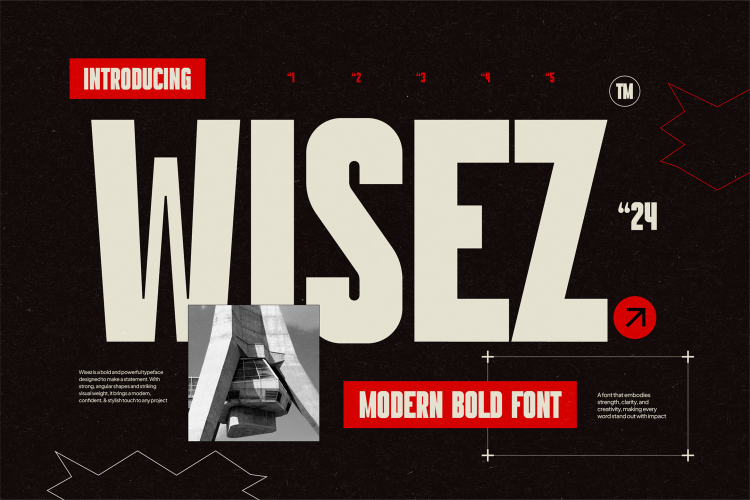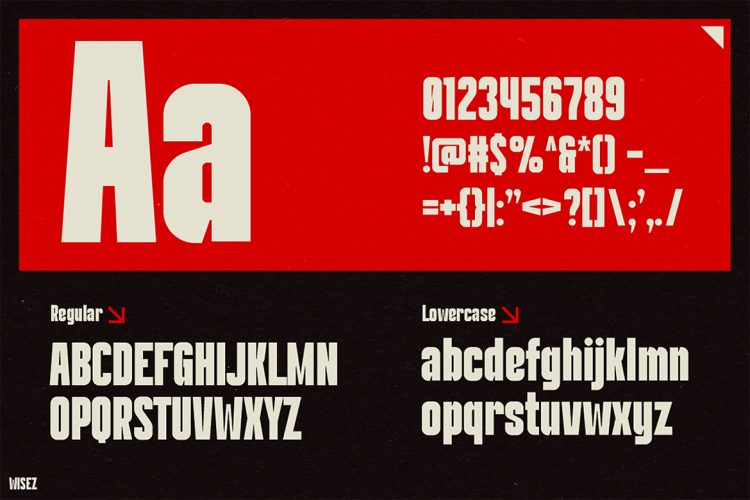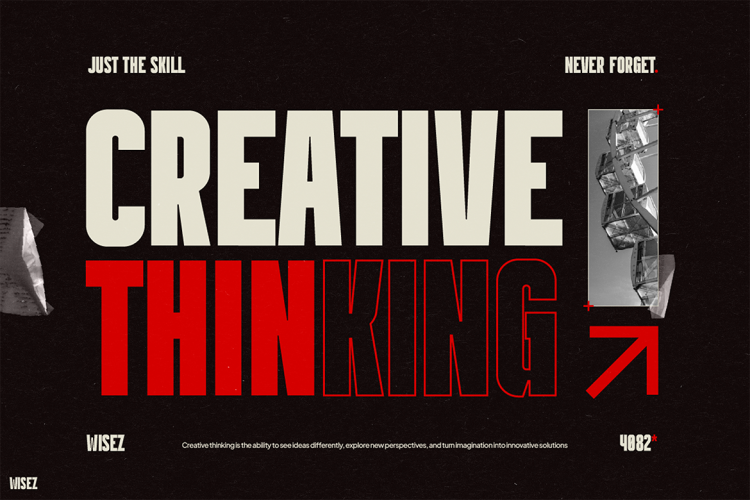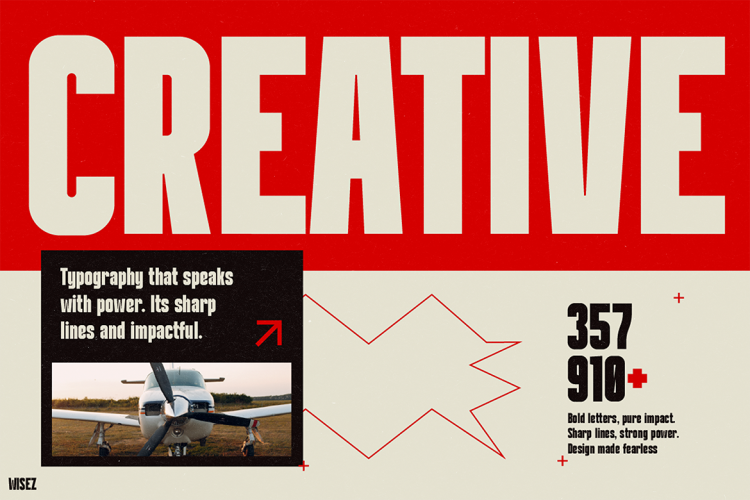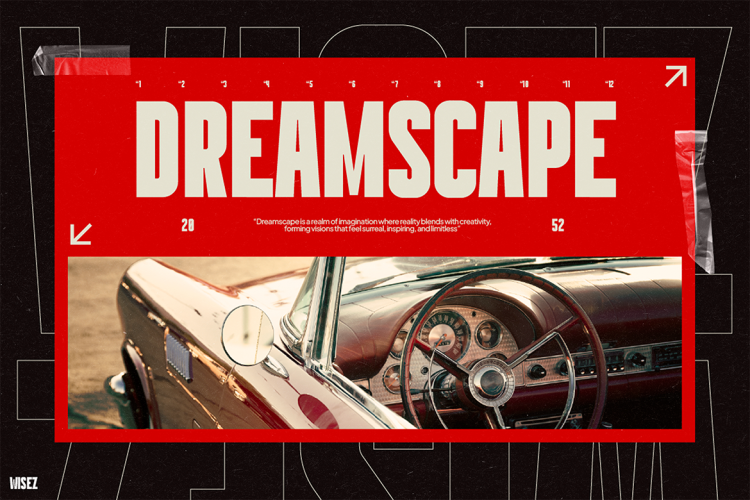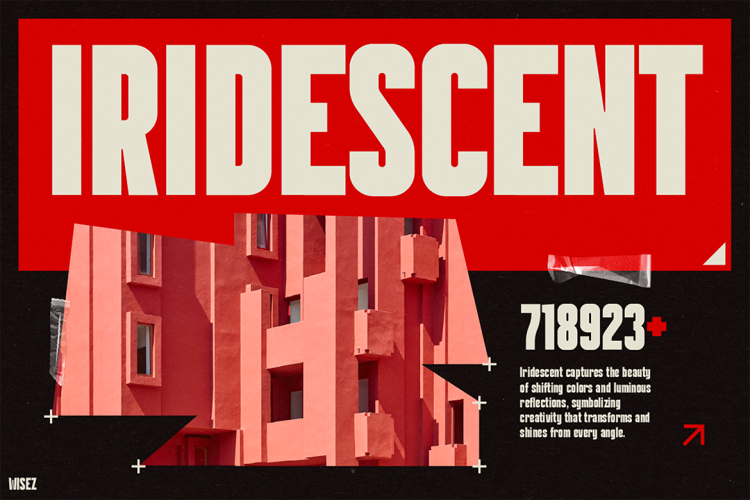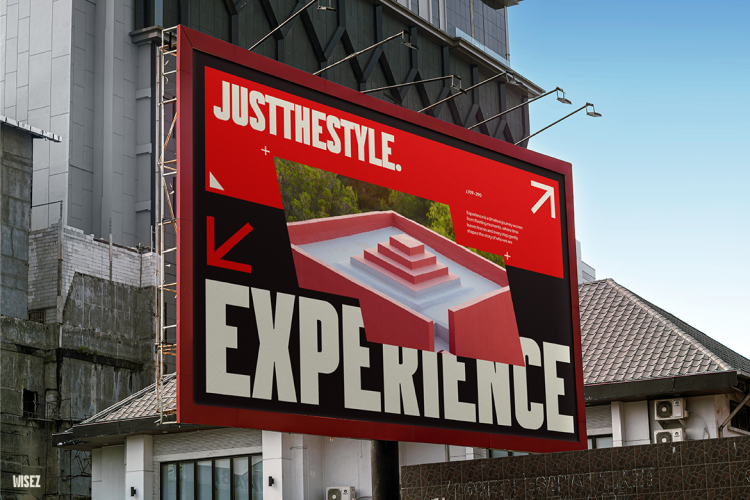
Instagram Font WISEZ is more than just a typefaceโitโs a bold declaration of creativity and style. Designed with sharp edges, strong curves, and daring proportions, this modern bold font turns every word into a statement. Moreover, its unique aesthetic lies in the balance between power and elegance, making it an essential tool for anyone who wants their designs to feel confident, contemporary, and impossible to ignore.
What makes Instagram Font WISEZ stand out is its versatility. Not only do the bold letterforms give an instant sense of authority, but the clean structure also keeps everything readable and sleek. Therefore, it becomes the perfect choice for designers who want both function and beauty in one typeface. In addition, it works equally well for editorial layouts, posters, social media graphics, and brand identities. No matter where you use it, this font guarantees impact and consistency.
Instagram Font WISEZ Who Is It Made For?
Instagram Font WISEZ is designed for creators who crave attention-grabbing visuals. For instance, graphic designers will find it ideal for building professional branding projects with a modern edge. Furthermore, social media creators and Instagram influencers can use it to elevate their posts, stories, and highlights into bold visual experiences that capture attention instantly.
Itโs also a must-have for businesses. Marketing agencies, tech startups, fashion brands, and lifestyle companies can all benefit from its strong identity. Instead of blending in with ordinary fonts, WISEZ ensures your visuals stand out. As a result, this typeface is not just a toolโitโs a personality booster that gives your projects a louder, sharper voice.